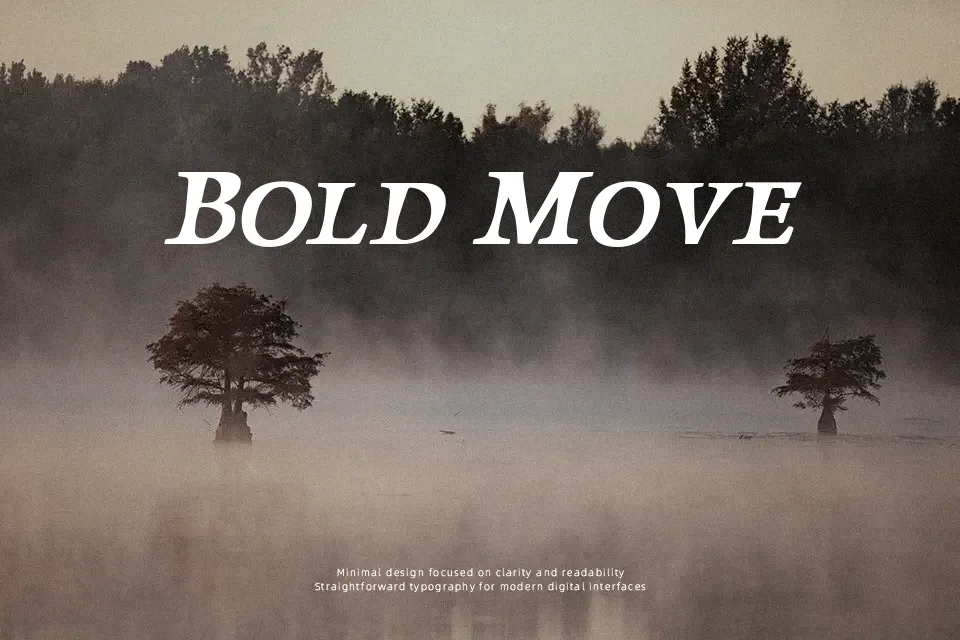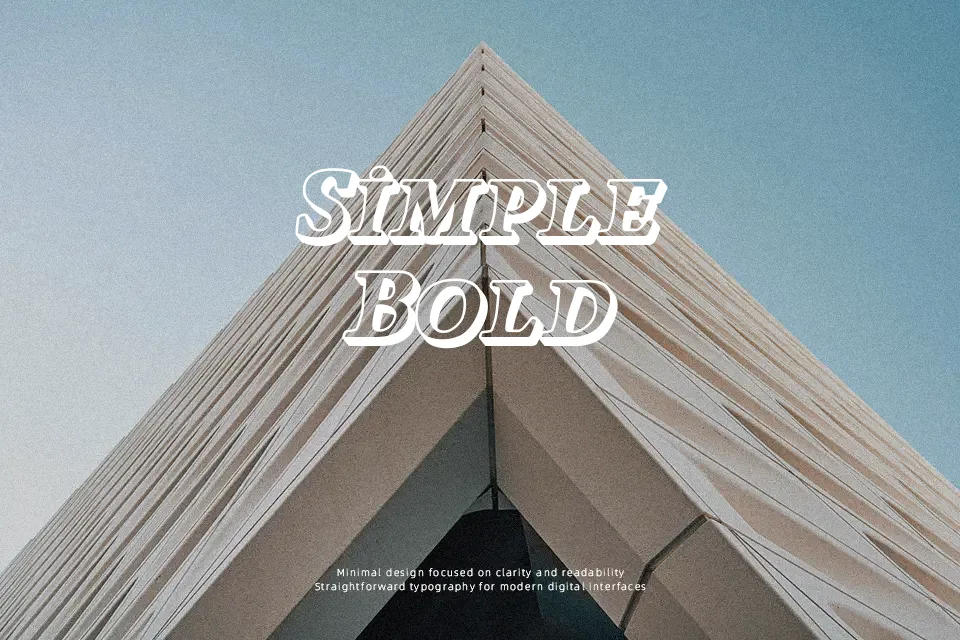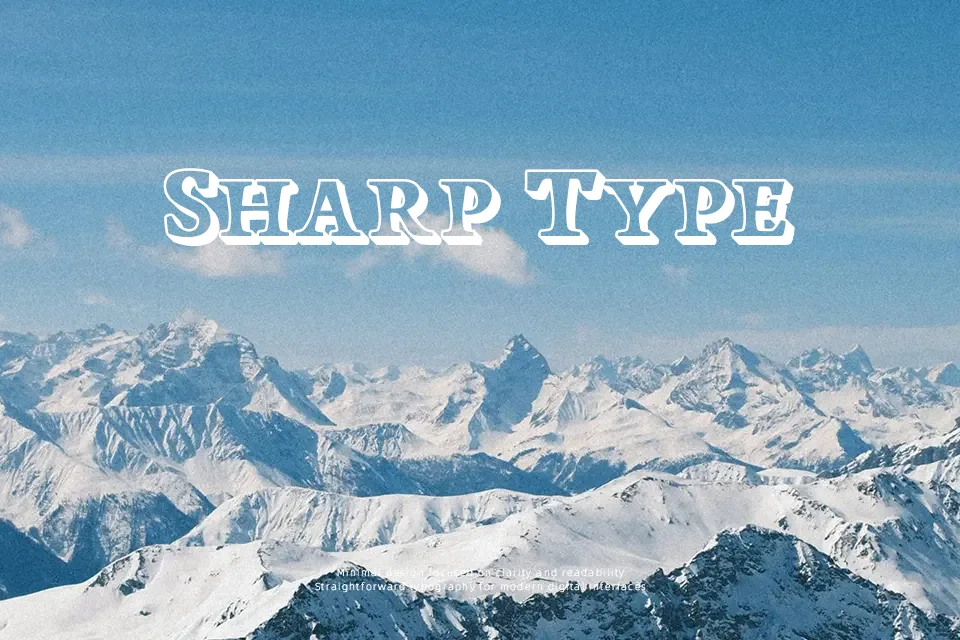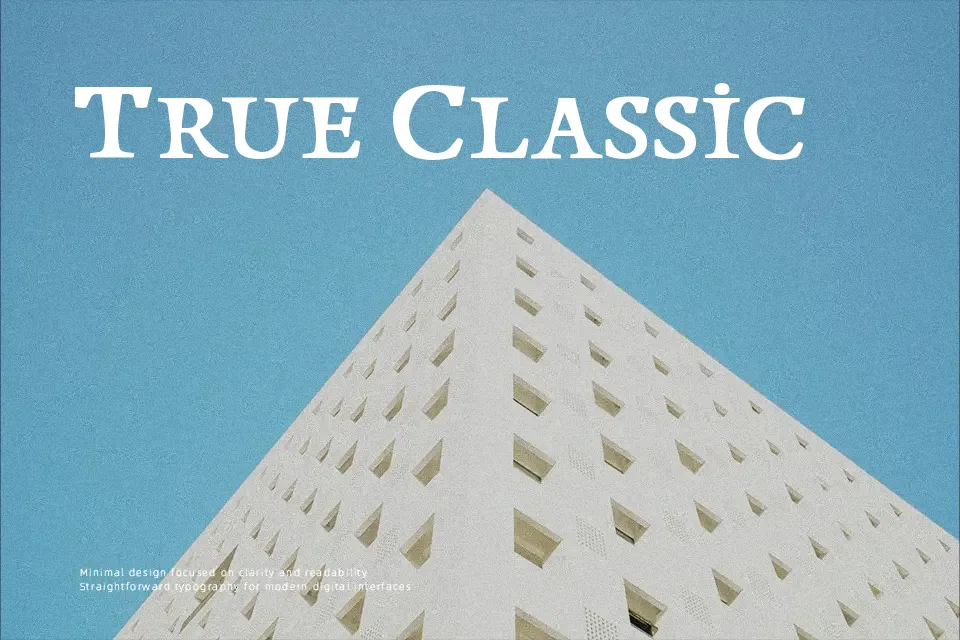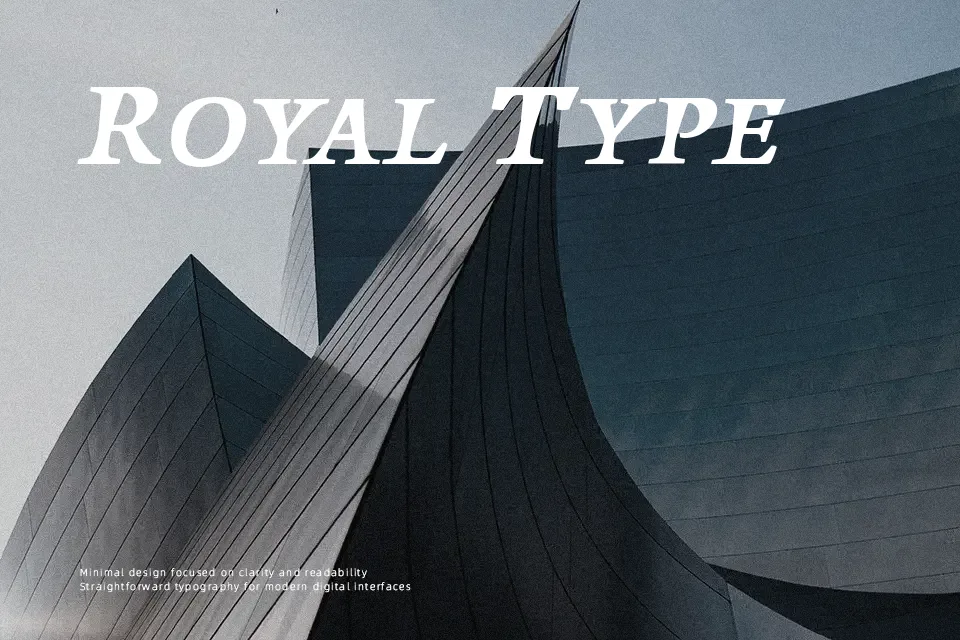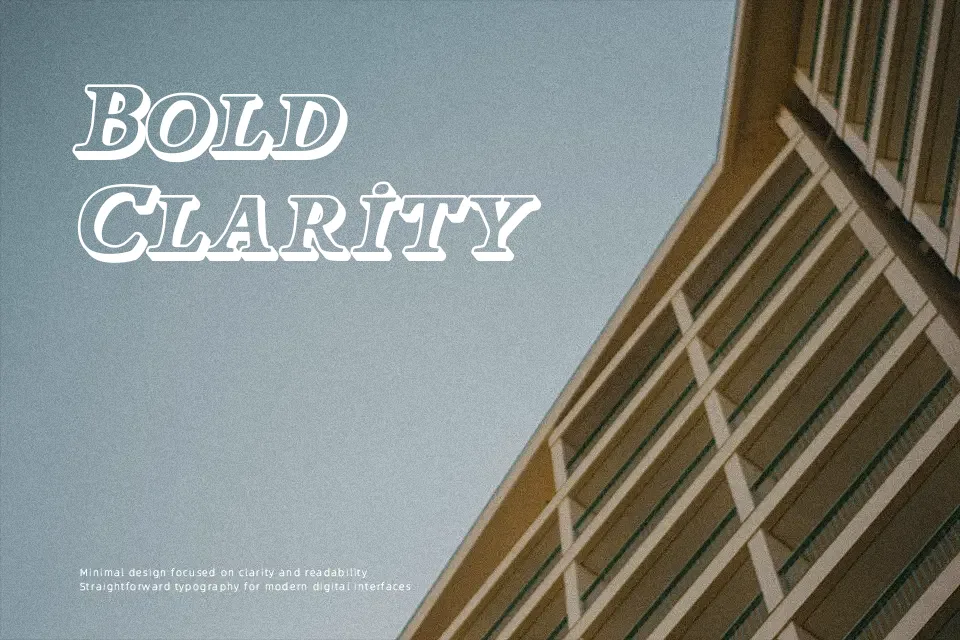
Papillons Font
Papillons Font works best as a decorative display face for short, prominent text. The letterforms use expressive outlines and embellished details that create an ornamental rhythm across capitals, lowercase characters, numerals, and punctuation. Its proportions are suited to large settings, where the shapes and internal spaces remain easier to inspect. Spacing appears designed for visual presence rather than compact text composition. The typeface can give invitations, product labels, and headline treatments a theatrical or artistic direction. Decorative details become less effective in small sizes, so it is a less practical choice for dense copy. The strongest results come from giving the lettering enough scale and surrounding space.
Best For: invitation titles,product packaging labels,poster headlines,short logo treatments
Perfect for headline, invitation, and logo, with a artistic and decorative style.